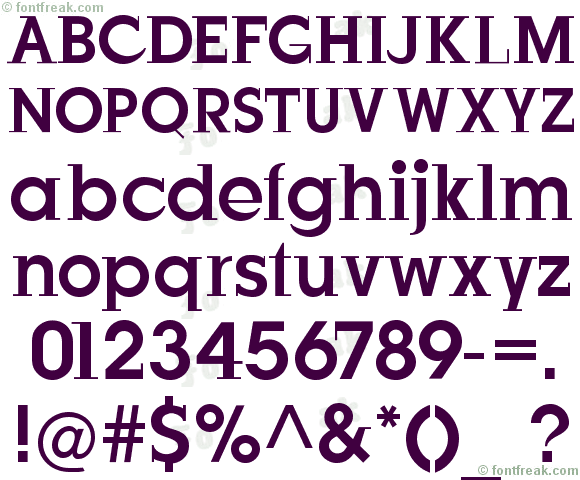
JustOldFashion
About Just Old Fashion
Just Old Fashion is a charming display typeface designed by Manfred Klein, perfect for those looking to add a touch of vintage flair to their projects. This font falls into the decorative category, characterized by its unique blend of nostalgia and modern usability. The strokes exhibit a moderate weight, creating a balanced appearance that is both eye-catching and legible. The letterforms feature subtle contrast, enhancing their classic feel without compromising readability. The spacing is carefully considered, allowing for easy flow across text blocks while maintaining a cohesive look.
This font shines in a variety of applications, making it a versatile choice for graphic designers and small business owners alike. It is particularly well-suited for wedding invitations, where its elegant yet approachable style can evoke a sense of romance and nostalgia. Just Old Fashion also makes a striking addition to movie posters, where its distinctive character can help capture the essence of a film’s theme. Restaurant menus can benefit from its artistic flair, drawing attention to dish names and descriptions in a way that feels both inviting and sophisticated. Additionally, content creators can utilize this typeface in branding, social media graphics, and promotional materials to convey a sense of authenticity and charm.
The target audience for Just Old Fashion includes graphic designers, small business owners, and content creators seeking to elevate their visual communications. This font stands out due to its ability to merge a classic aesthetic with modern design principles, making it a timeless choice for various projects. With a Just Old Fashion font free download available, you can easily incorporate this delightful typeface into your next creative endeavor and bring a touch of vintage sophistication to your designs.